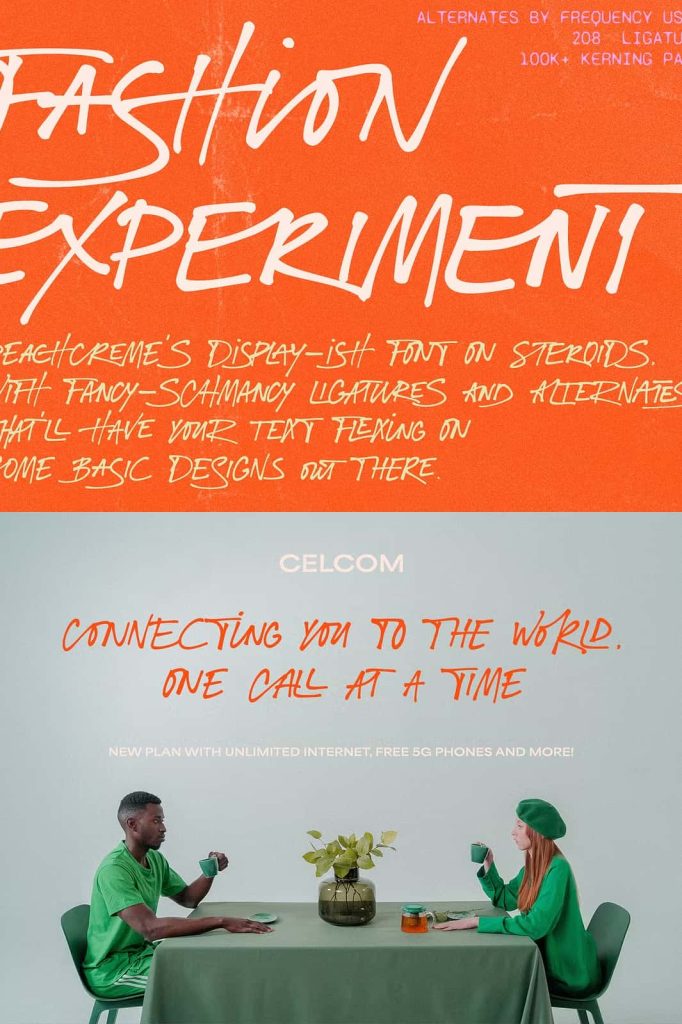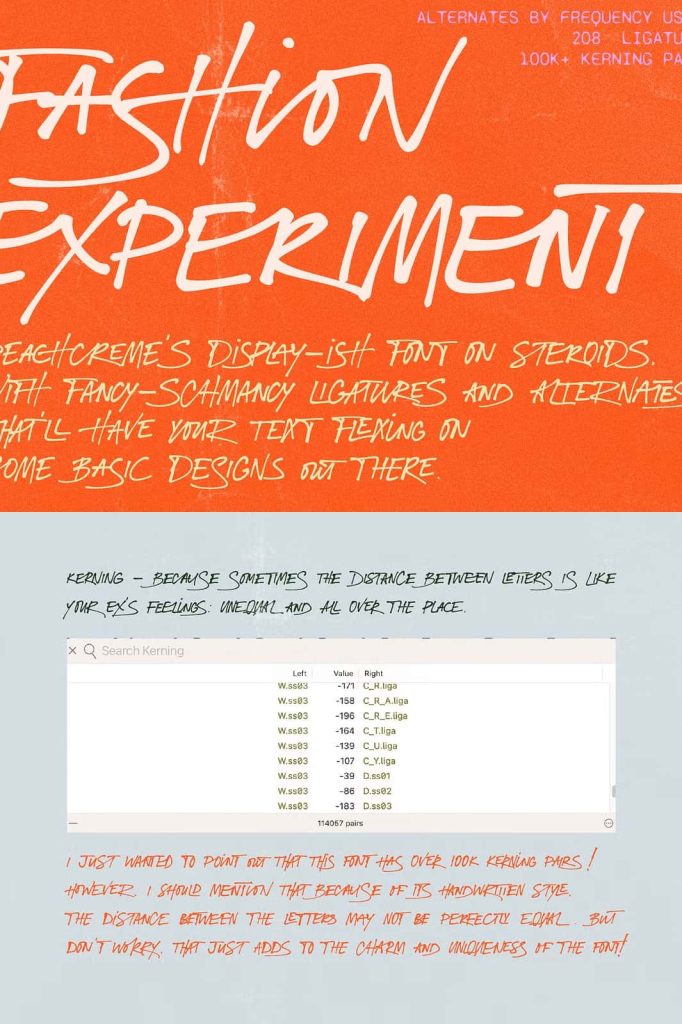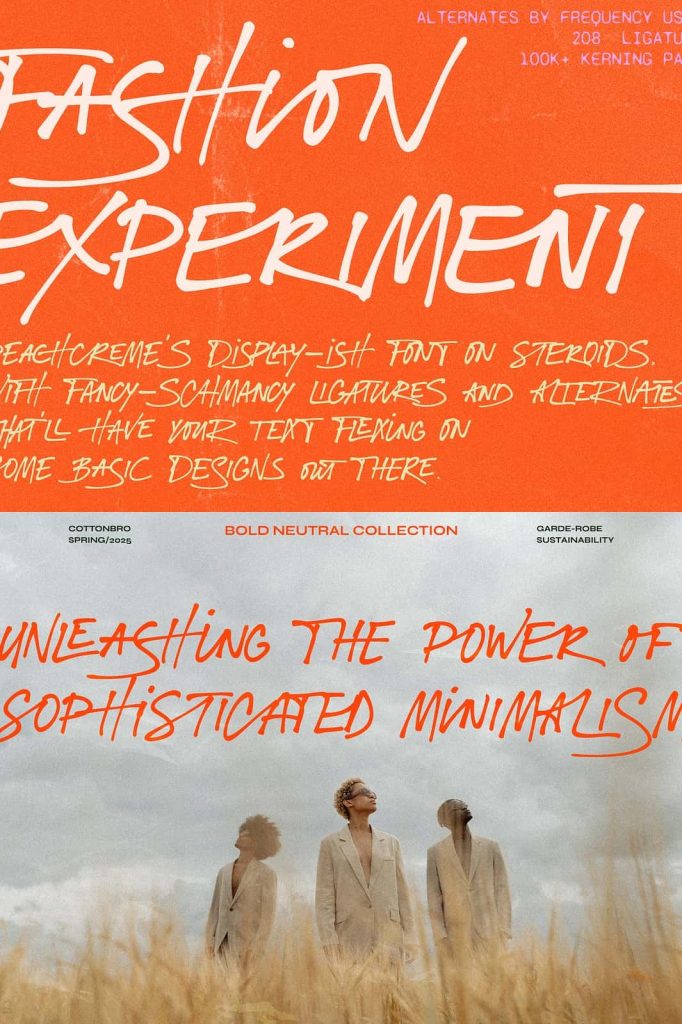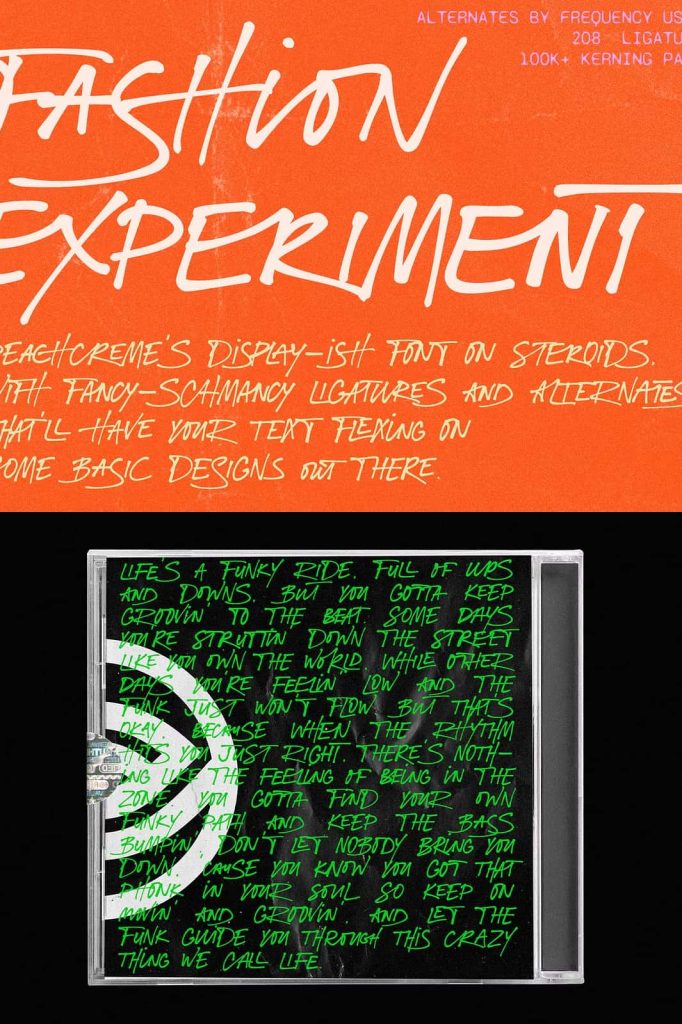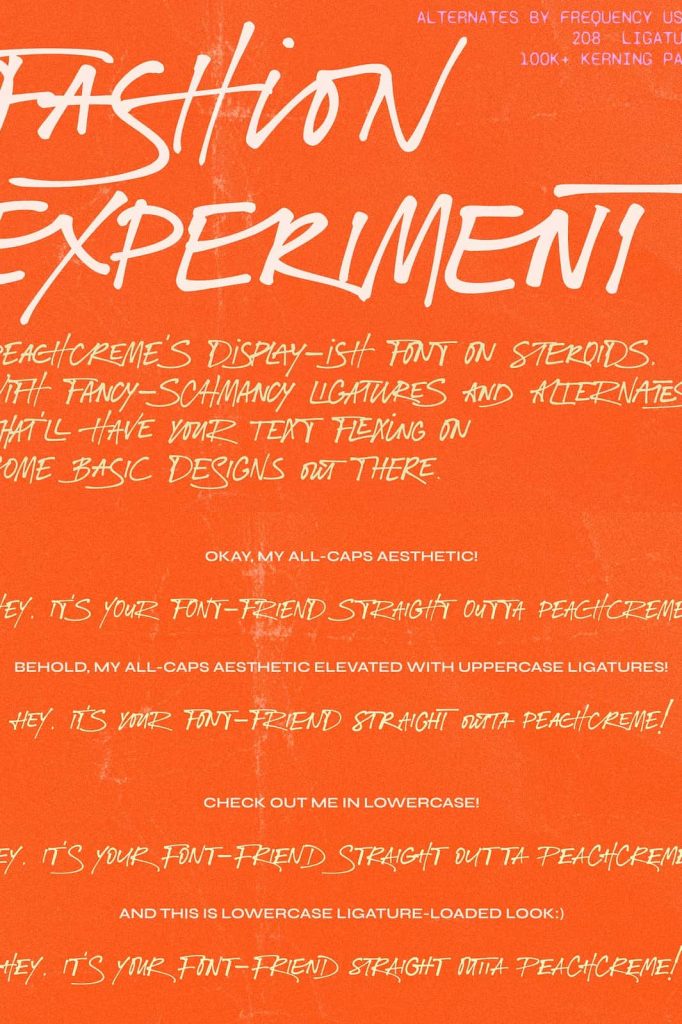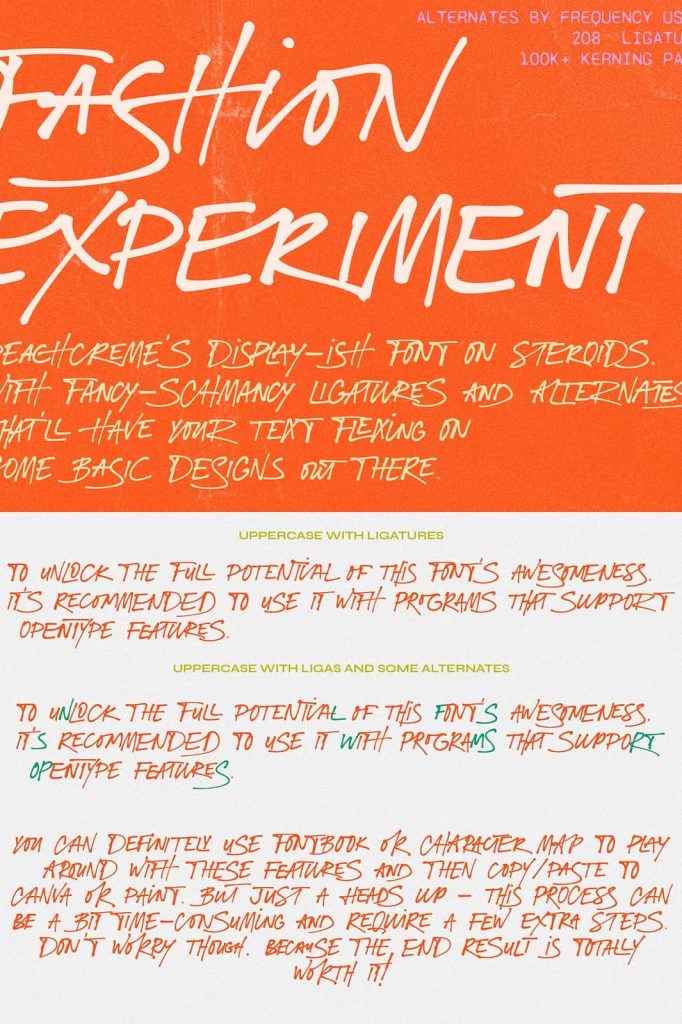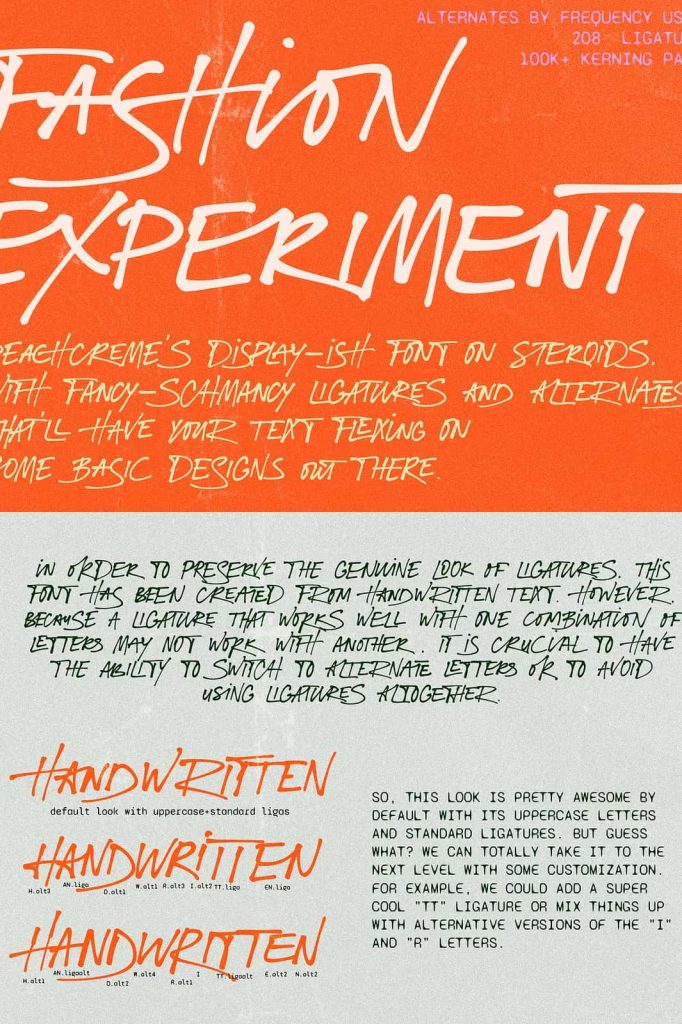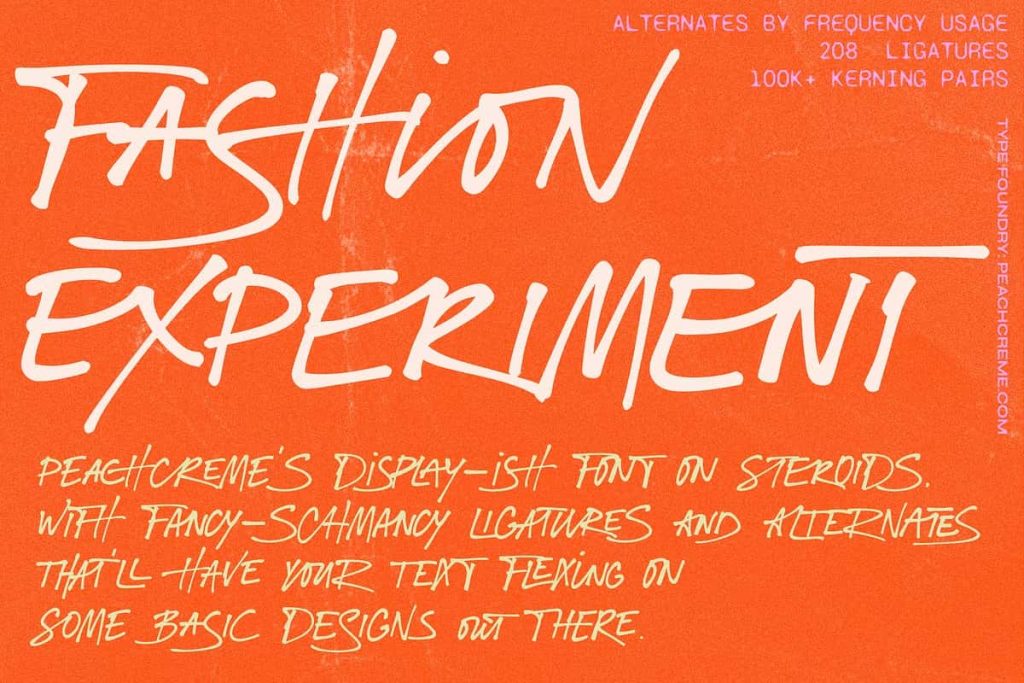
Fashion Experiment // Funky Font
Fashion Experiment Handwritten Display Font: Funky All-Caps Typography for Bold Creative Design
Fashion Experiment Handwritten Display Font is a vibrant and expressive typeface designed to bring energy, personality, and artistic flair to modern design projects. This unique all-caps display font captures the spontaneous feel of gel pen handwriting, creating bold letterforms that instantly attract attention. Designers who want to add a playful and unconventional character to their typography will find Fashion Experiment to be a powerful tool for creating visually engaging layouts.
Unlike traditional display fonts that rely on rigid structures, Fashion Experiment embraces the organic movement of handwritten lettering. The result is a lively typeface that feels creative, confident, and slightly rebellious. Every letter reflects the natural pressure and flow of a gel pen, producing a dynamic style that works perfectly for eye-catching titles and expressive visual communication.
Because of its bold and artistic personality, Fashion Experiment Handwritten Display Font works especially well in high-impact design projects. Designers can use it to craft attention-grabbing headers, striking poster compositions, memorable album covers, product packaging, and stylish merchandise graphics.
A Funky Handwritten Display Font with Unique Character
Fashion Experiment Handwritten Display Font stands out because of its distinctive gel pen-inspired style. The strokes appear natural and fluid, with subtle variations that give each character a hand-drawn authenticity. These organic details make the font feel personal and artistic while maintaining strong readability in display contexts.
The all-caps structure strengthens the bold visual presence of the typeface. Capital letters naturally create stronger shapes and clearer alignment within a layout. By using an all-caps format, Fashion Experiment ensures that every word appears confident and impactful.
This funky handwritten style works particularly well for designers who want to break away from predictable typography. Instead of relying on clean geometric forms, Fashion Experiment introduces playful energy that brings designs to life.
Perfect for Impactful Headers and Titles
Display fonts play an essential role in headline typography. Fashion Experiment Handwritten Display Font excels in this role by delivering strong shapes and expressive strokes that demand attention. Designers can use it to create bold titles that immediately capture the viewer’s interest.
Whether used in digital content or printed materials, the font ensures that key messages remain visually dominant. Large header text becomes more engaging when presented with the lively character of this gel pen-inspired typeface.
The bold all-caps structure also makes it easy to maintain visual hierarchy within layouts. Designers can highlight primary headlines with Fashion Experiment while supporting the layout with simpler fonts for body text.
An Artistic Gel Pen Style
One of the defining features of Fashion Experiment Handwritten Display Font is its gel pen-inspired appearance. Gel pen lettering often produces smooth yet slightly textured strokes that reflect the pressure and movement of handwriting. This effect gives the font a lively and expressive quality.
The gel pen style also introduces a sense of creativity and spontaneity into typography. Each letter feels slightly different, which adds personality to words and phrases. These subtle variations help designs appear more organic and less mechanical.
This artistic quality makes Fashion Experiment particularly suitable for creative industries such as fashion design, music production, streetwear branding, and visual art projects. The font communicates freedom, experimentation, and bold self-expression.
Ideal for Poster and Album Cover Design
Poster design often requires typography that commands attention from a distance. Fashion Experiment Handwritten Display Font provides the bold presence needed for impactful poster compositions. Its thick strokes and energetic shapes make headlines stand out clearly within busy visual layouts.
Music and entertainment designers will also appreciate the expressive personality of this font. Album covers frequently rely on unique typography to convey the mood and identity of the music. The funky handwritten style of Fashion Experiment adds artistic character that helps album titles feel distinctive and memorable.
Designers can experiment with color, texture, and background elements to enhance the visual impact of the typography. Because the font already carries strong personality, it works especially well in minimalist compositions where the lettering becomes the central design element.
Great for Product Design and Merchandise
Fashion Experiment Handwritten Display Font also performs exceptionally well in product design and merchandise graphics. The bold and playful letterforms create memorable typography for clothing designs, product labels, packaging, and promotional items.
Streetwear brands, creative studios, and independent artists often use expressive fonts to communicate individuality. Fashion Experiment fits perfectly within this aesthetic because it combines artistic freedom with strong visual clarity.
Designers can apply the font to t-shirts, tote bags, stickers, posters, and lifestyle products to create merchandise that feels creative and authentic. The handwritten style gives products a handcrafted personality that resonates with audiences who appreciate unique design.
Versatile for Modern Creative Projects
Although Fashion Experiment Handwritten Display Font has a bold artistic personality, it remains versatile enough for many types of creative work. Designers can use it for digital graphics, social media posts, website headers, advertising campaigns, and promotional materials.
The energetic style helps brands communicate creativity and originality. In digital marketing, eye-catching typography often determines whether content captures attention. Fashion Experiment provides that visual power by turning simple text into expressive graphic elements.
Designers can pair the font with minimalist sans-serif typefaces to maintain readability in longer text sections while allowing the display font to dominate headlines and decorative text elements.
Create Bold Visual Statements with Fashion Experiment
Fashion Experiment Handwritten Display Font gives designers the freedom to explore bold and unconventional typography. Its funky all-caps structure and gel pen-inspired strokes create lettering that feels energetic, artistic, and memorable.
From poster design and album covers to merchandise and digital graphics, this display font transforms ordinary text into powerful visual statements. The expressive style allows designers to communicate creativity and personality while maintaining strong readability for display typography.
If you want to create impactful designs that celebrate artistic experimentation, Fashion Experiment Handwritten Display Font provides the perfect typographic tool. Its lively handwritten character helps designers craft visuals that stand out, inspire curiosity, and leave a lasting impression.